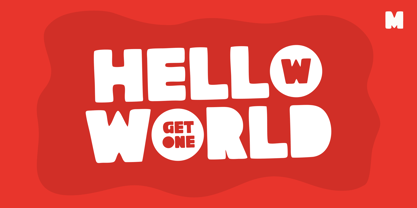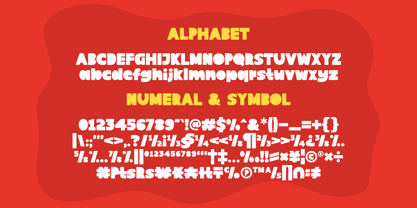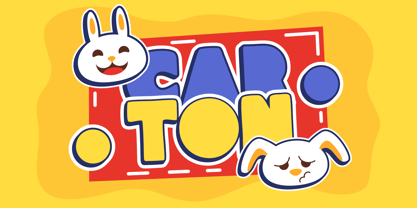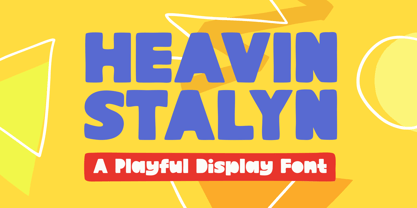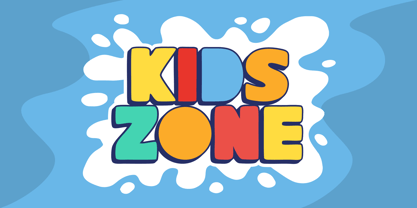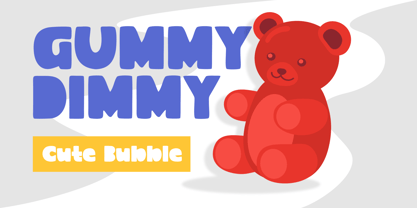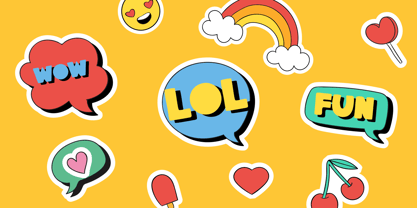
Heavin Stalyn
by Maikohatta
The Heavin Stalyn Font Family was designed by Gilang Ternadho and published by Maikohatta. Heavin Stalyn contains 1 styles. More about this family
Introducing our new product Heavin Stalyn - Playful Display Font
This font is characterized by reflecting joy, cheerfulness and a light atmosphere with a handwritten style often found in comics or cartoons.
This font is perfect for projects that want to highlight elements of playfulness and fun, such as poster designs, invitation cards, comics, or promotional materials aimed at a younger audience or those looking for a fun feel.